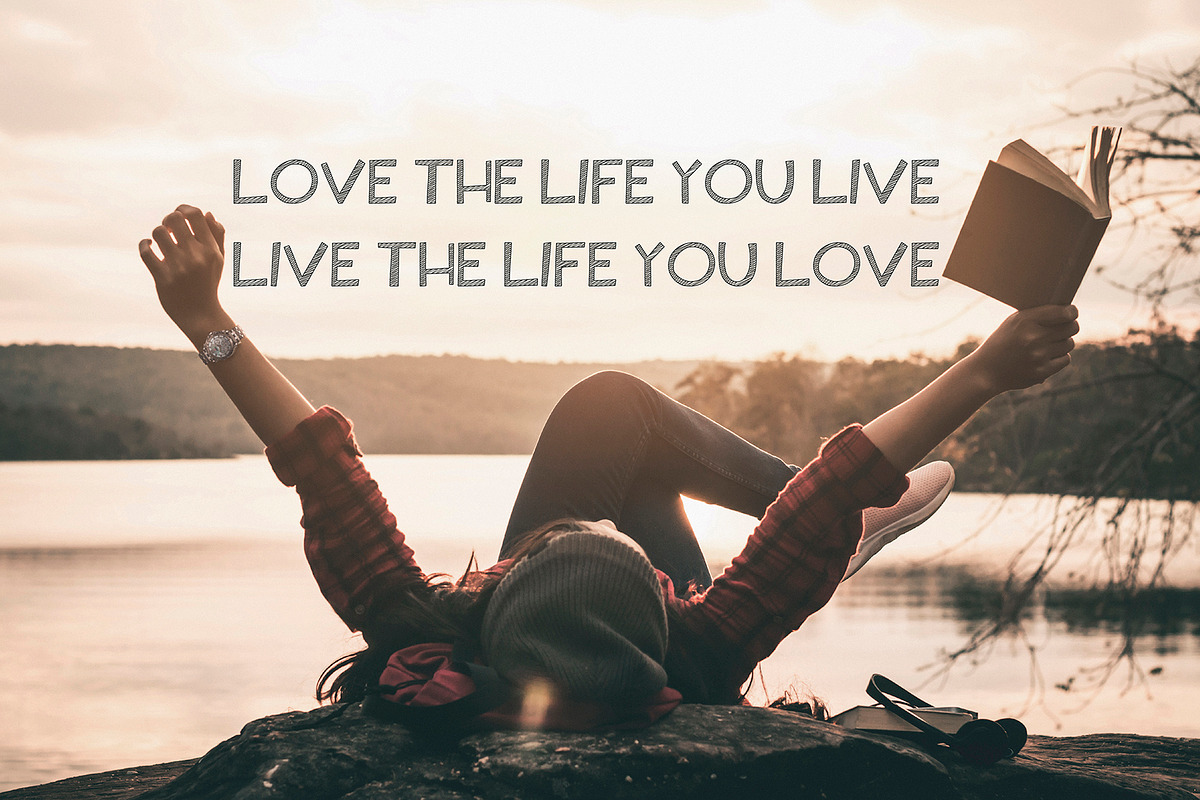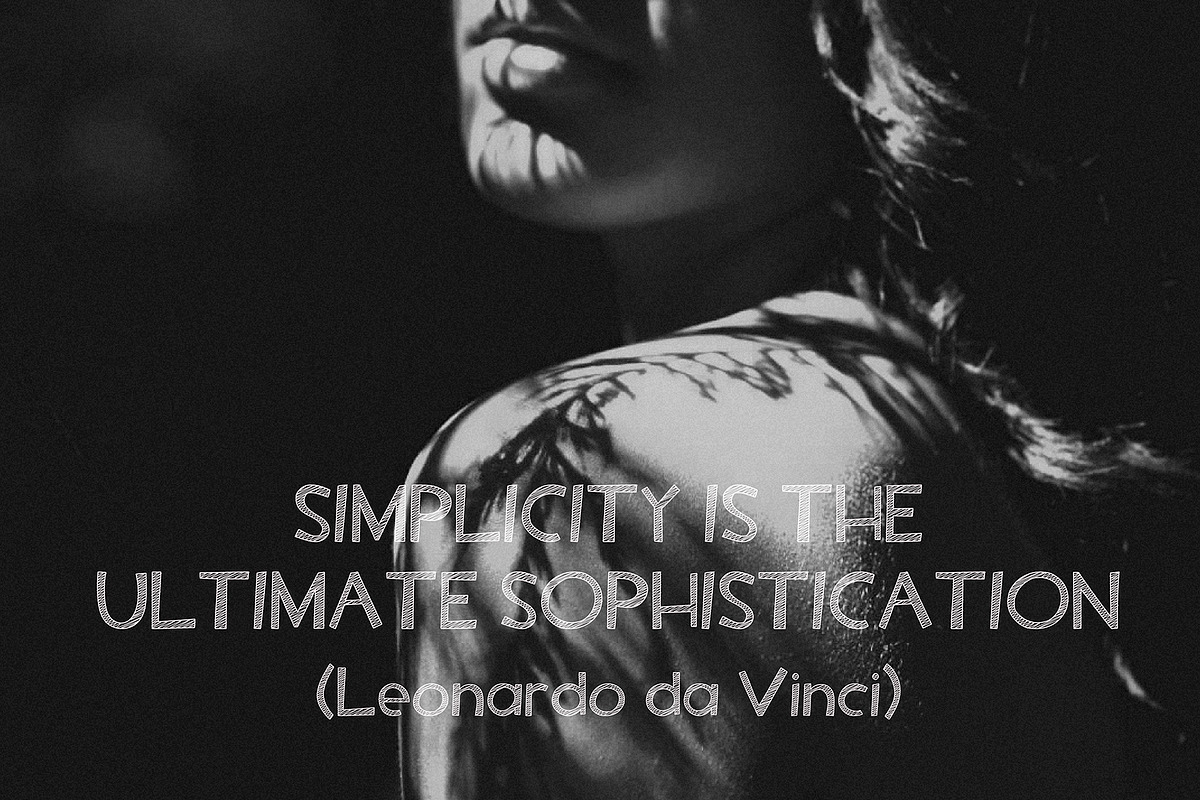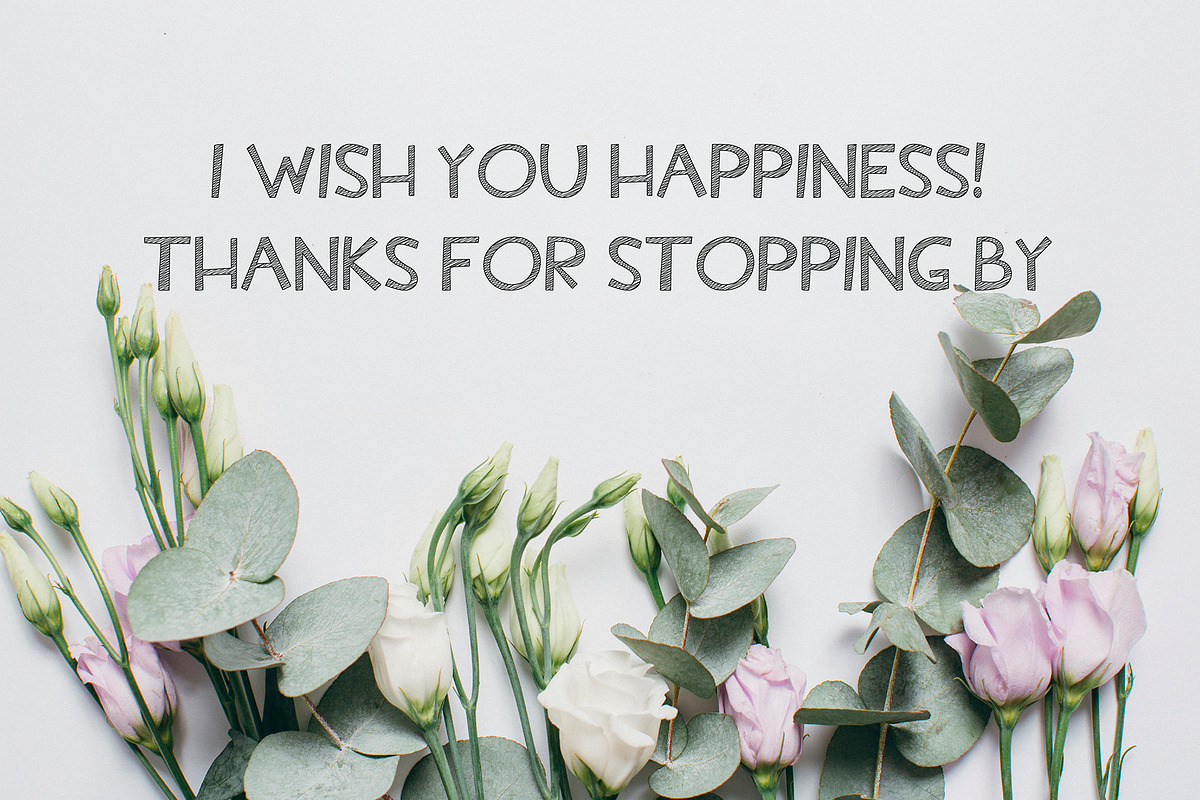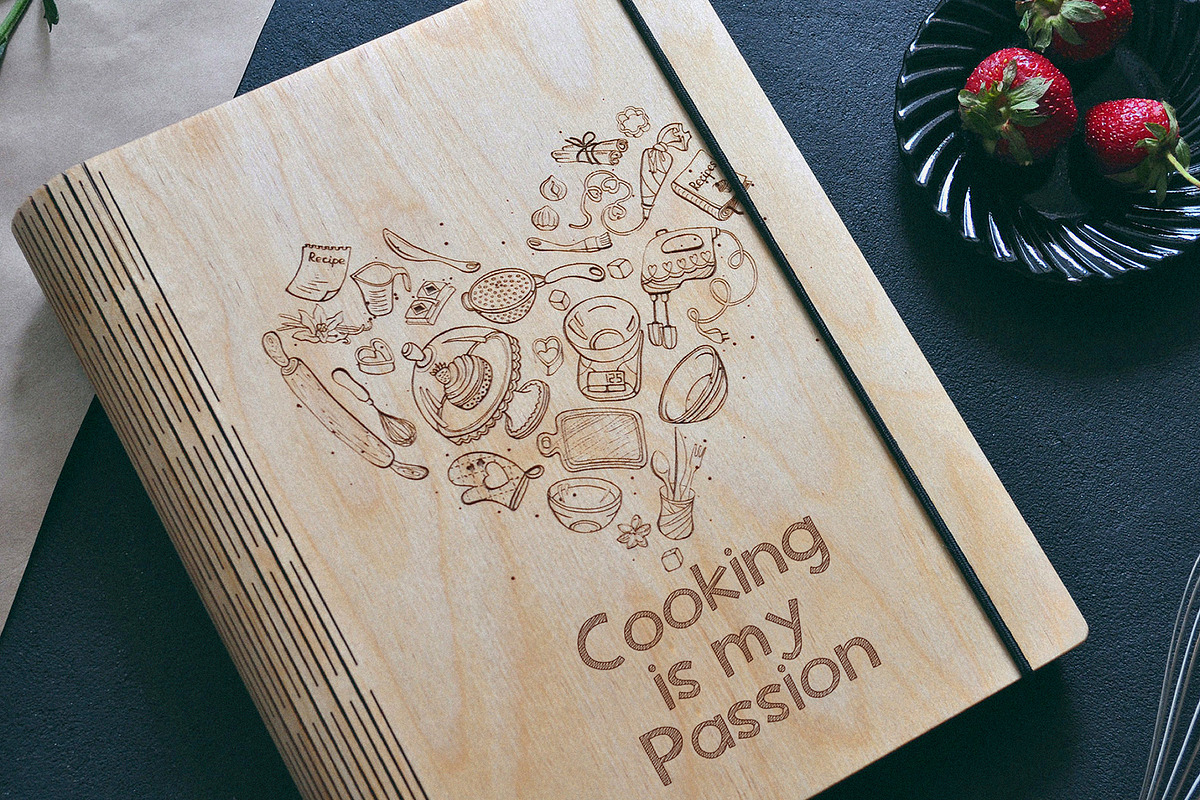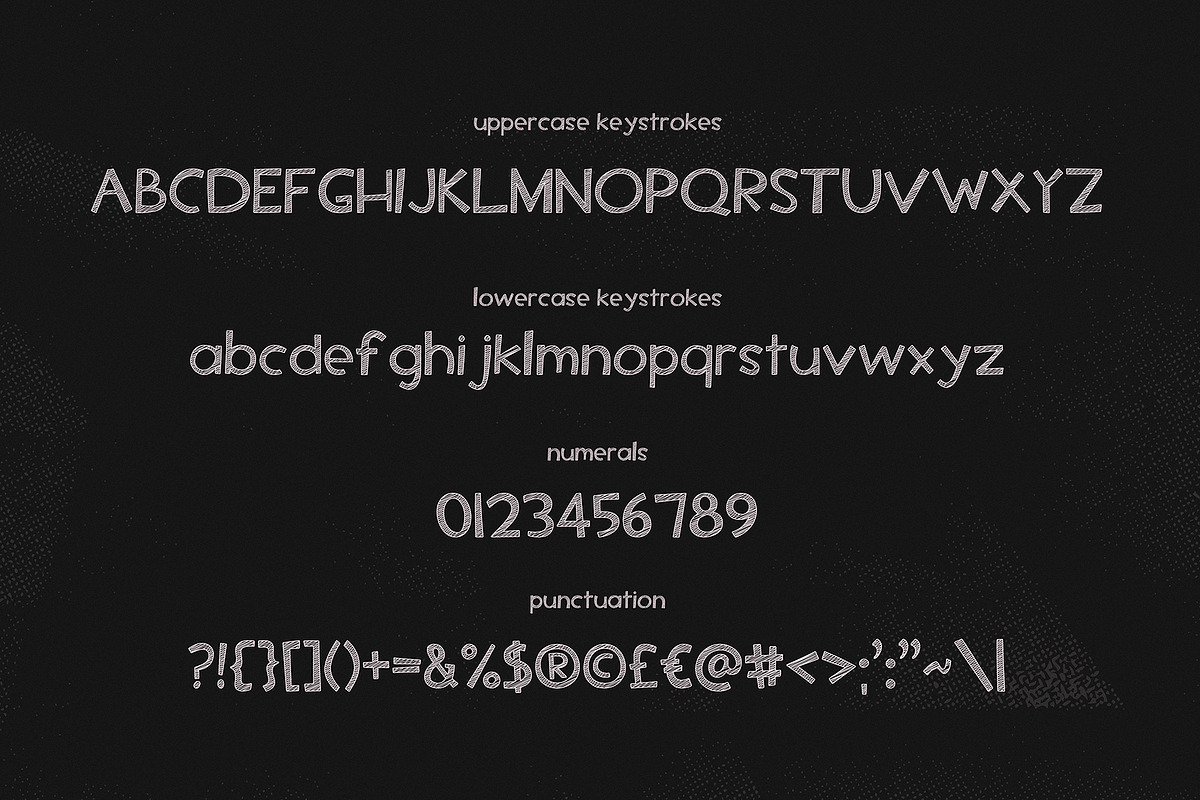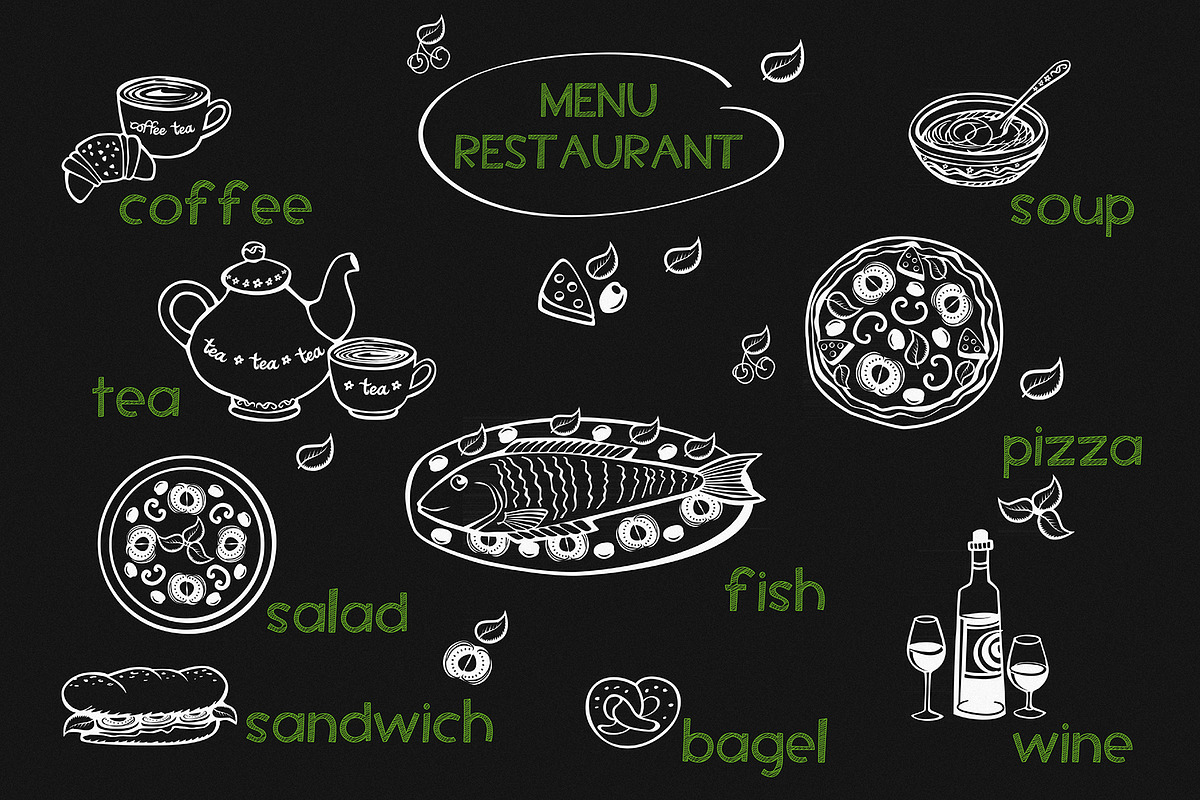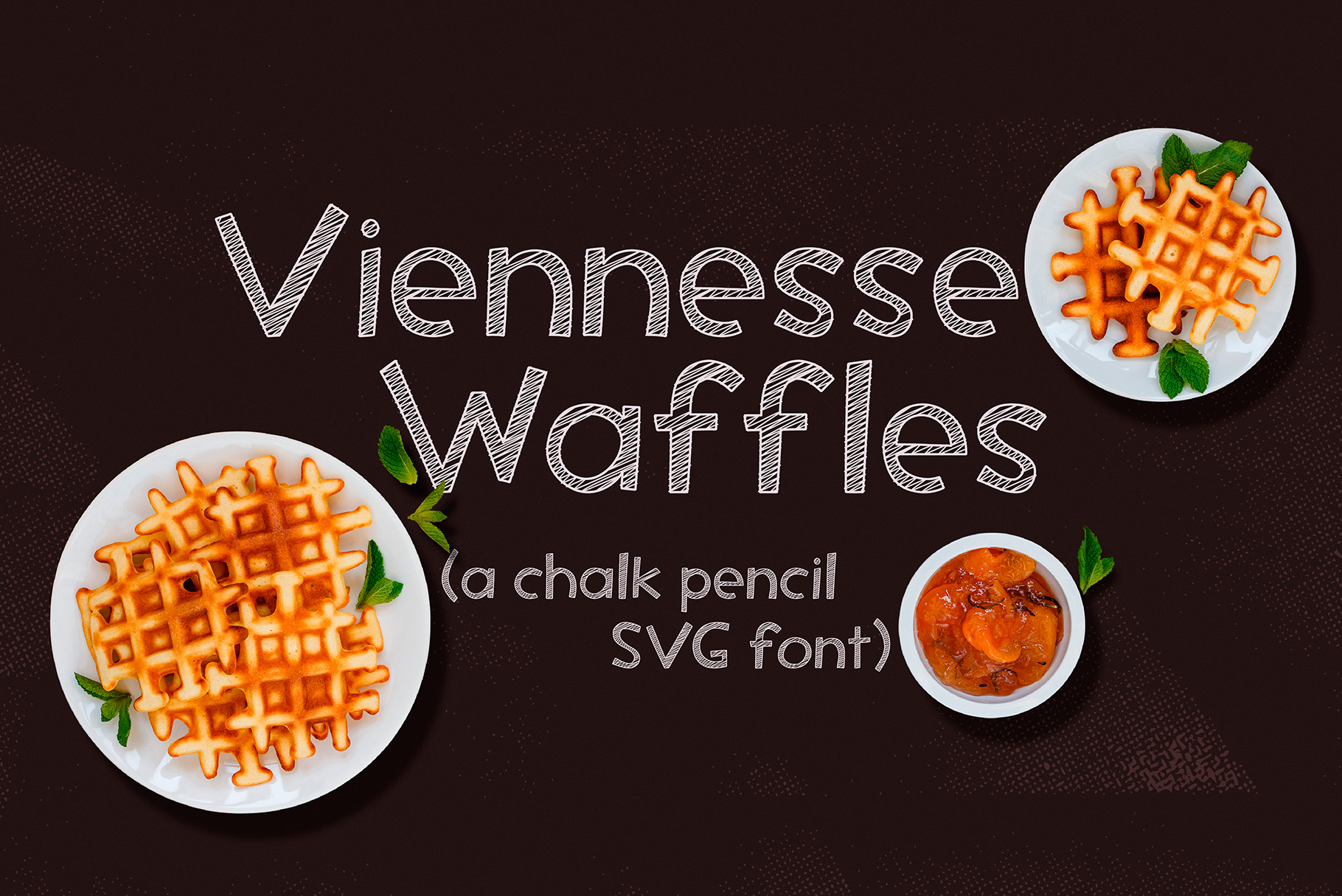
Viennese Waffles - SVG font
Say hello to Viennese Waffles!! :) A nice, wobbly, playful SVG pencil font with a handwritten inscription-with a fine texture built right into it!! Great for outstanding quotes, playful branding, children's books, fancy greeting cards, cooking recipes, menu design and more!
A-Z; character set a-z;
numbers and punctuation marks, symbols.
A font containing uppercase and lowercase letters, numbers, and a wide range of punctuation marks.